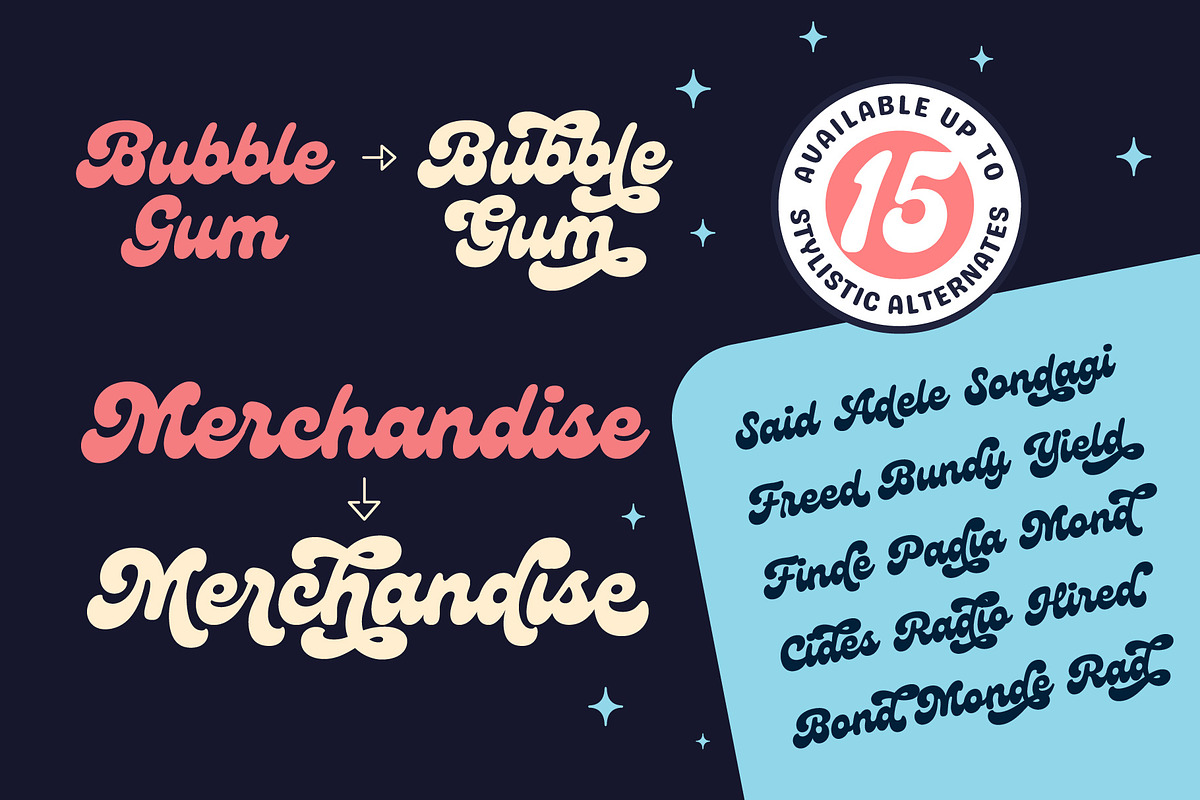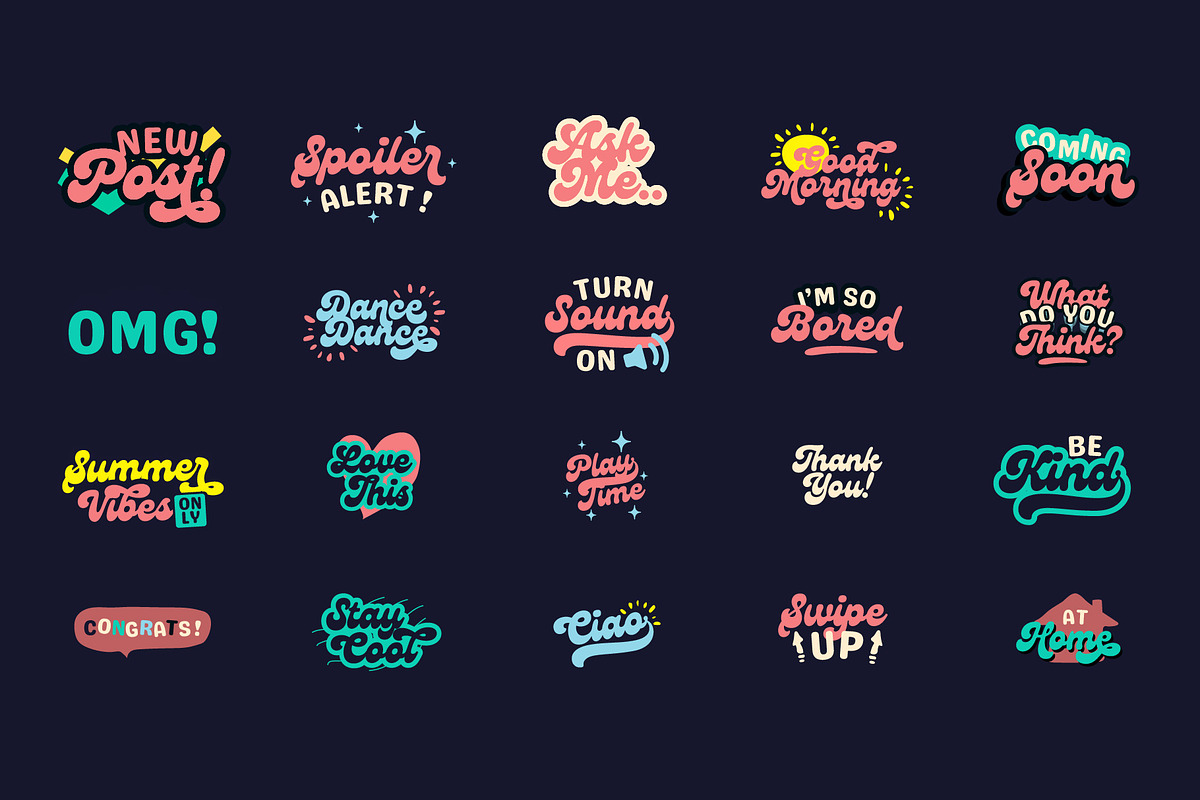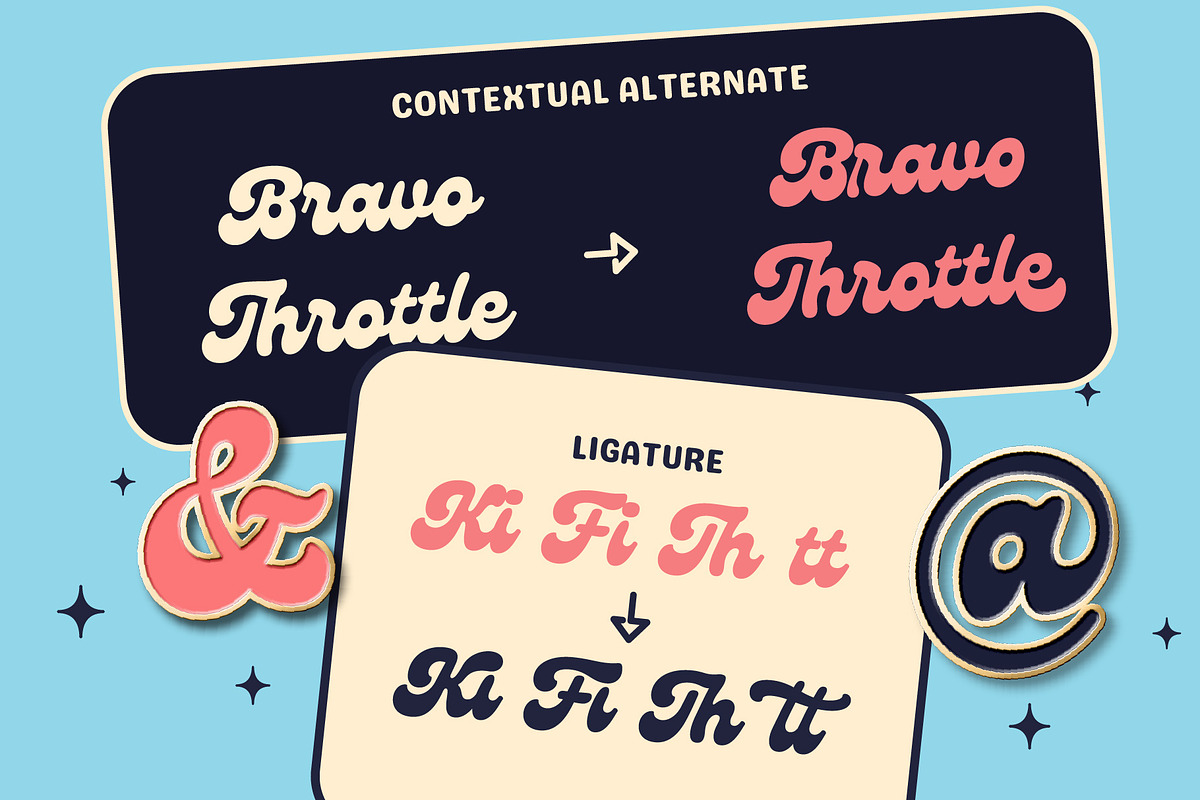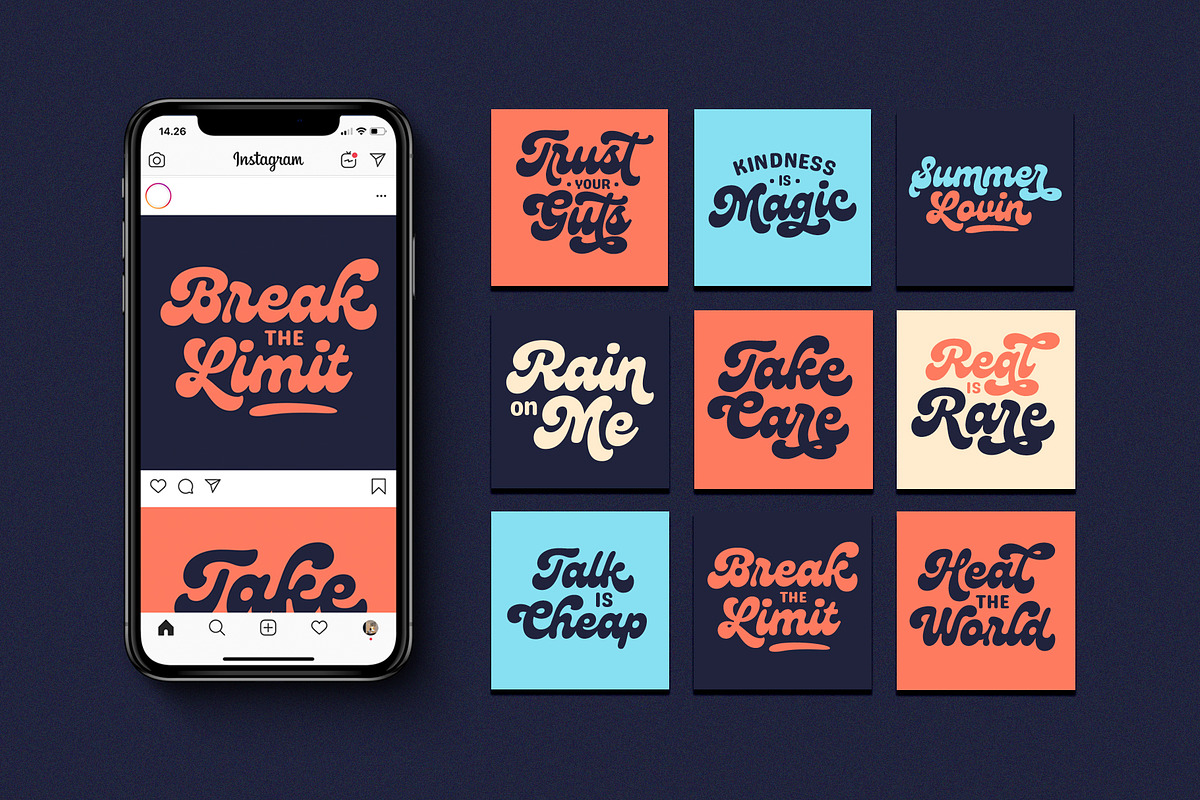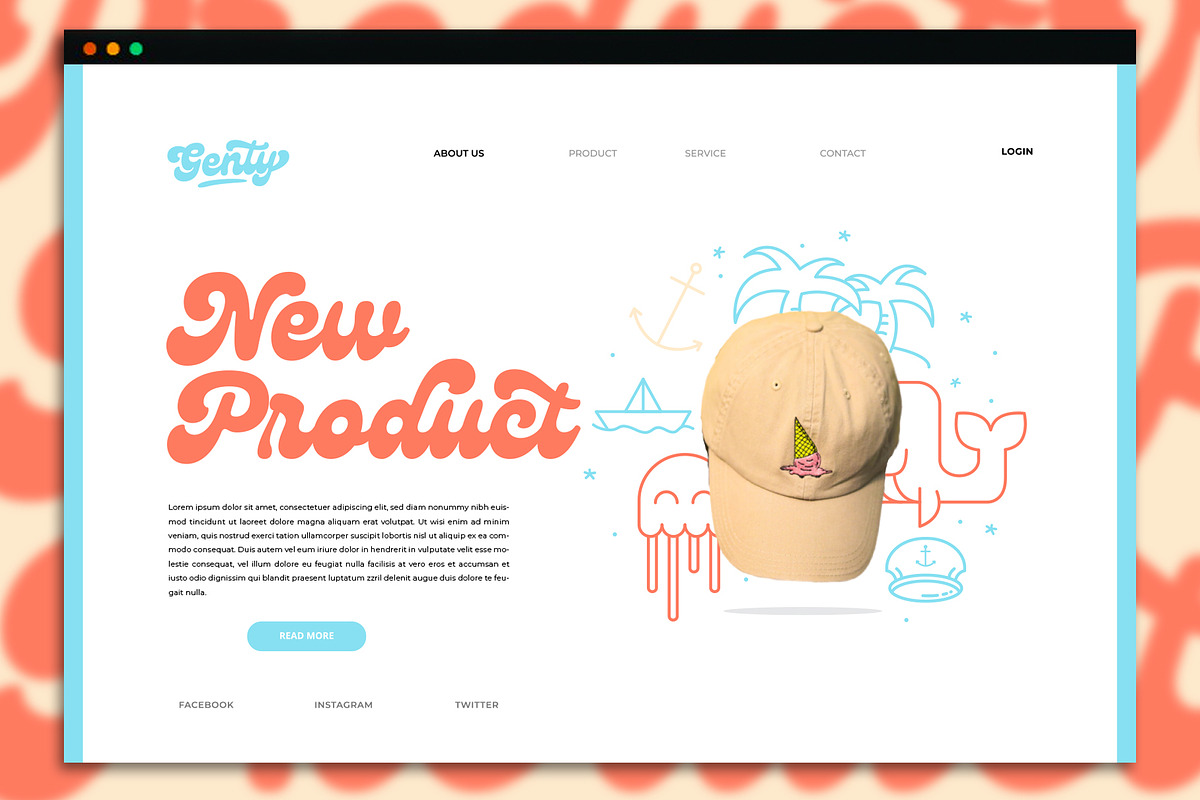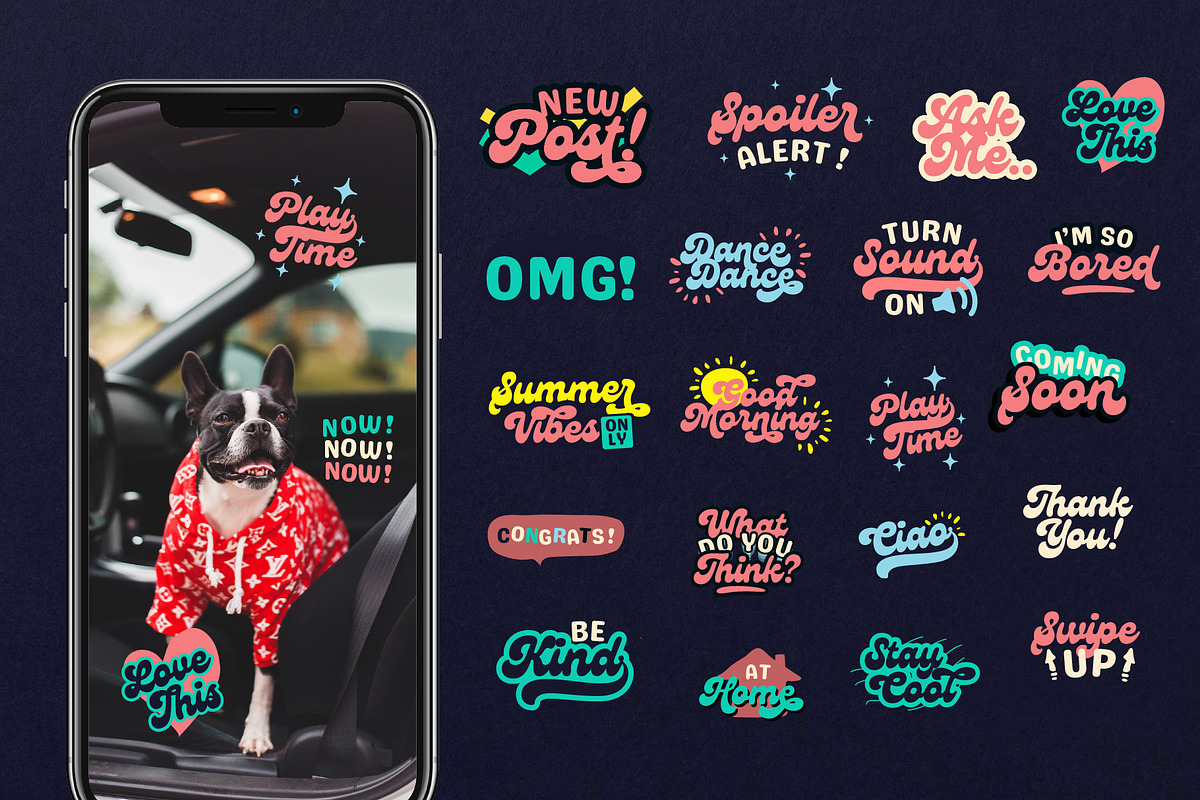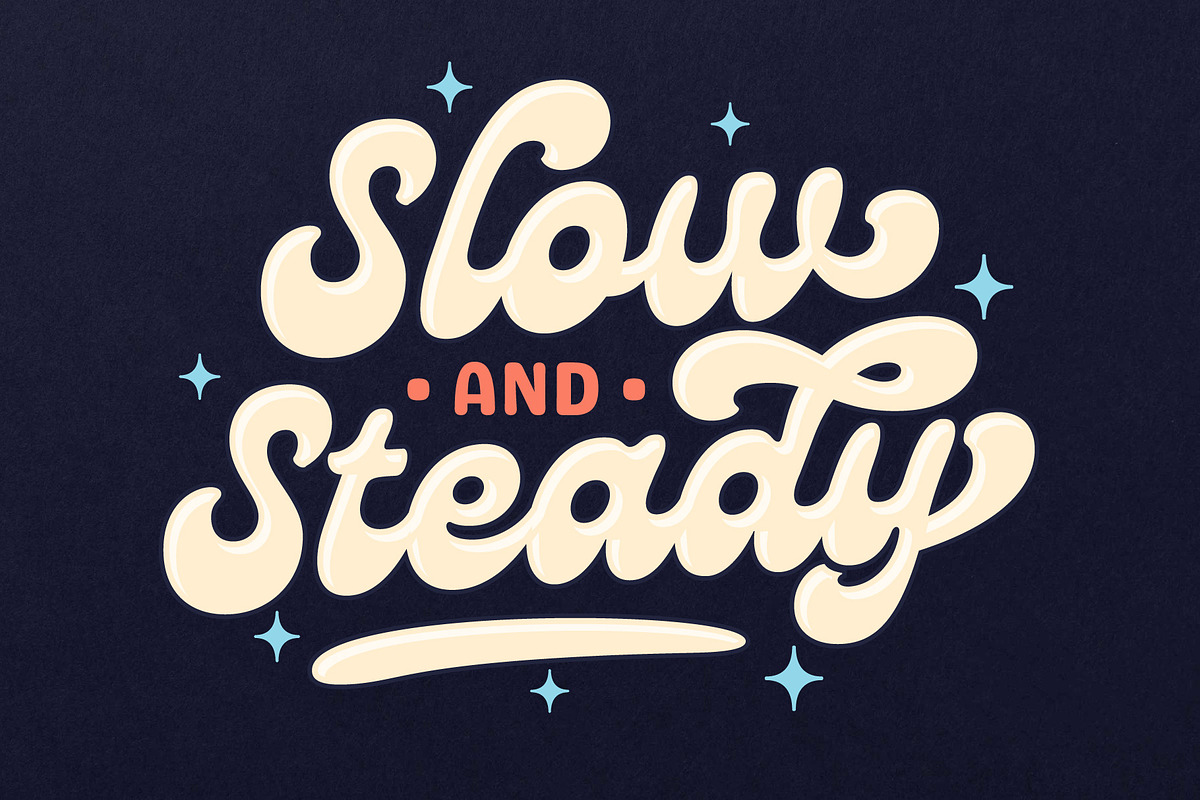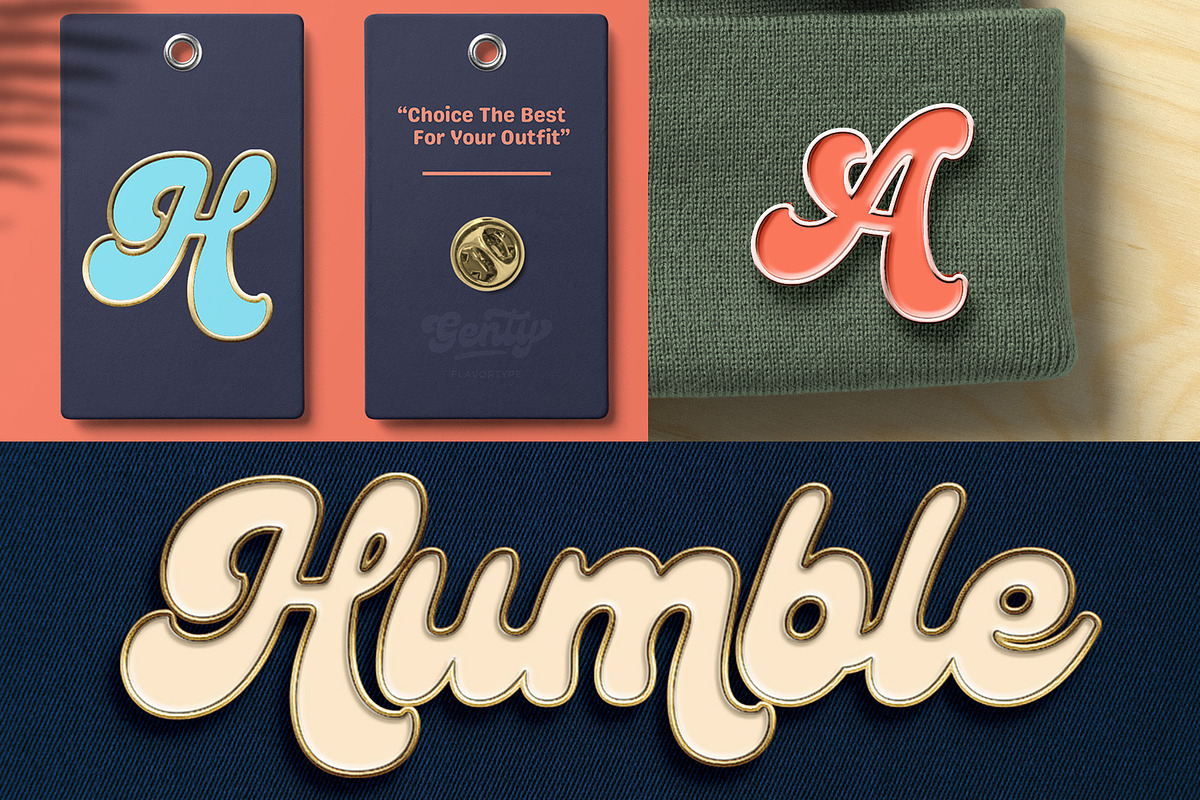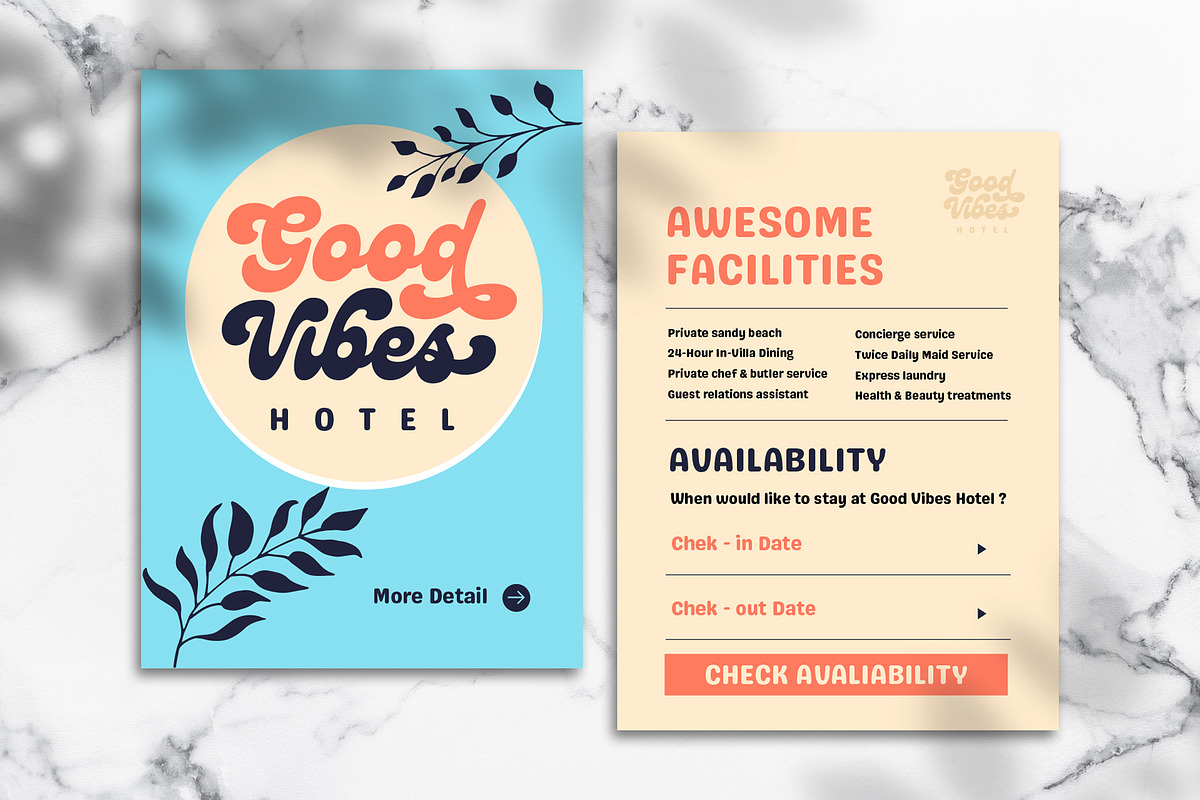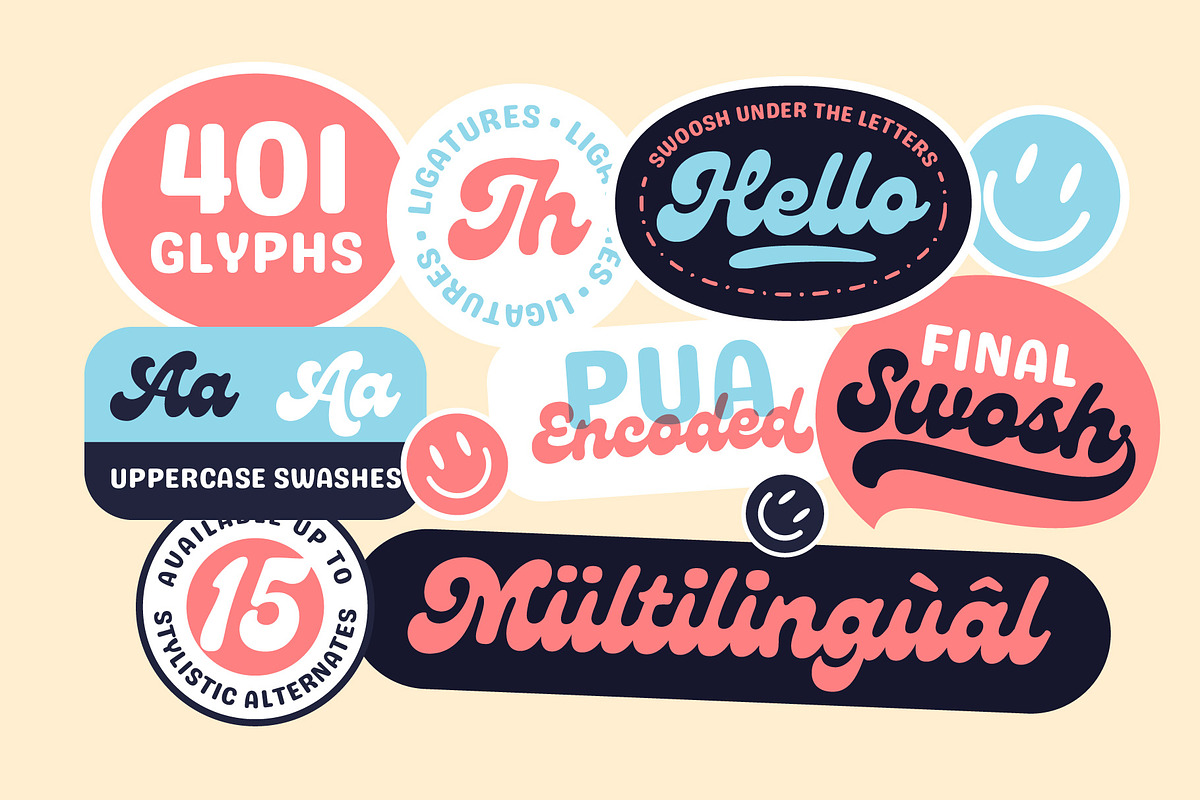
Genty - Bold Rounded Typeface
Bold, Rounded, Swashes.
Meets Genty, A new carefully crafted Delightful Bold on a script typefaces. A Creation of combining on our last 2 fonts which is Budge and Glaw. It generates a lot more fun, more trendy and more vibrant. It’s Versatile, Fun, Cute and Beauty feel that you get in Genty Typefaces.
Genty Created with a tons of opentype features. beautiful swashes, contextual alternates, stylistic sets up to 15 alternates, ligatures, ascender & descender swashes, Uppercase swashes, swoosh under the letters and swoosh at final of the letters.
Every glyphs for alternates are curated for the best and possible without eliminate characteristic of this fonts. Genty also comes with a Font Pair Sans Serif that complete the needs for your design.
Our creation on the display to give you a reference what it looks like on your project. such as Branding, Header, Logotype, Poster, Magazine, Packaging, Food Menus, and etc. It shows that Genty clearly can accommodate various design style.